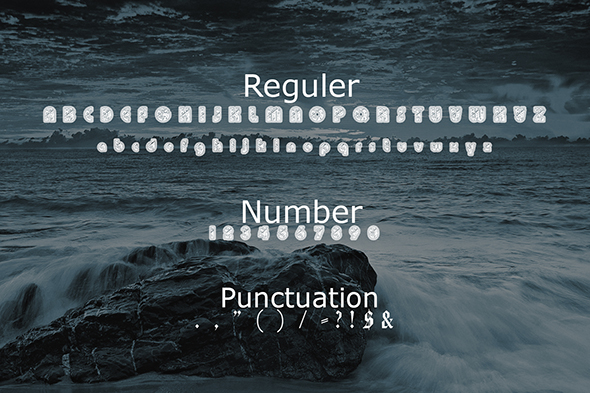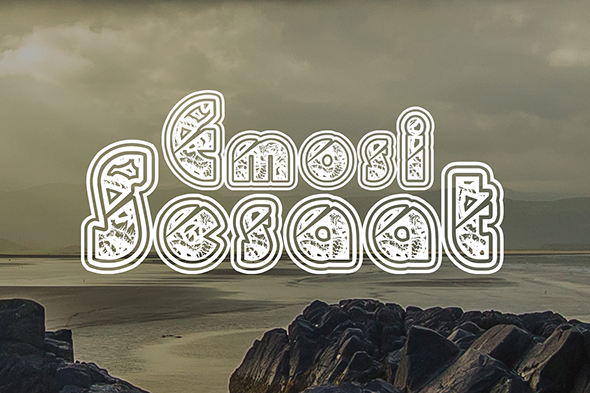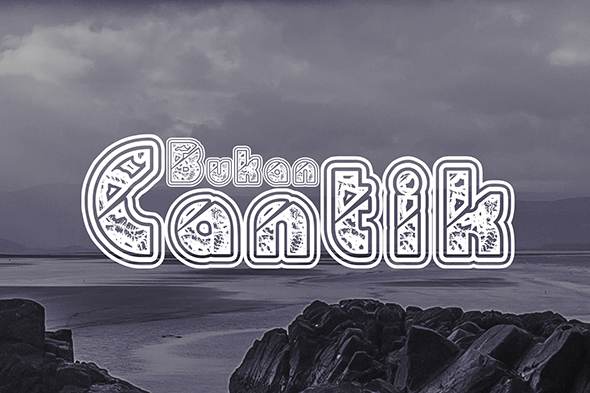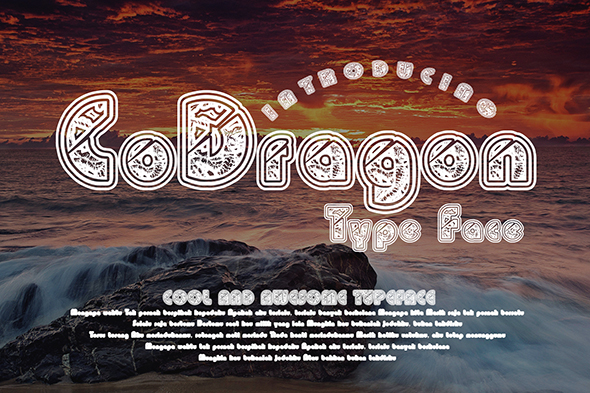
Unleash Your Creativity with CoDragon Font: A Unique Typeface for Designers and Crafters
Are you tired of using the same old fonts for your designs? Look no further! CoDragon Font is here to revolutionize the way you create. This truly unique typeface is perfect for those who like to be creative and want to make a statement with their work. Whether you’re a designer, crafter, or DIY enthusiast, CoDragon Font is the perfect addition to your toolkit.
What Makes CoDragon Font So Special?
CoDragon Font is a one-of-a-kind typeface that stands out from the crowd. Its unique design makes it perfect for a variety of uses, including headlines, book covers, posters, invitations, and much more. The font’s creative and playful vibe is sure to capture the attention of your audience and leave a lasting impression.
Endless Possibilities with CoDragon Font
CoDragon Font is incredibly versatile, making it suitable for a wide range of projects. Here are just a few ideas to get you started:
- Headlines: Use CoDragon Font to create eye-catching headlines for your blog posts, articles, or social media updates.
- Book Covers: Make your book cover stand out with CoDragon Font. It’s perfect for fiction, non-fiction, and children’s books.
- Posters: Create stunning posters for events, promotions, or advertising campaigns with CoDragon Font.
- Invitations: Add a touch of elegance and sophistication to your invitations with CoDragon Font.
- Crafting: Use CoDragon Font to create beautiful signs, labels, and titles for your crafting projects.
Why Designers and Crafters Love CoDragon Font
CoDragon Font has quickly become a favorite among designers and crafters due to its unique and creative design. Here are just a few reasons why:
- Unique Design: CoDragon Font is unlike any other font on the market. Its distinctive design makes it perfect for those who want to stand out from the crowd.
- Easy to Use: CoDragon Font is incredibly easy to use, even for those who are new to design or crafting.
- High-Quality: CoDragon Font is a high-quality font that is designed to produce stunning results.
- Versatile: CoDragon Font can be used for a wide range of projects, making it a valuable addition to any design or crafting toolkit.
Tips and Tricks for Using CoDragon Font
Here are a few tips and tricks to help you get the most out of CoDragon Font:
- Experiment with Colors: CoDragon Font looks great in a variety of colors. Experiment with different colors to find the one that works best for your project.
- Play with Sizes: CoDragon Font can be used at a variety of sizes. Experiment with different sizes to find the one that works best for your project.
- Combine with Other Fonts: CoDragon Font can be combined with other fonts to create a unique and interesting design.
| Font Name | CoDragon Font |
| Author | Gblack Id |